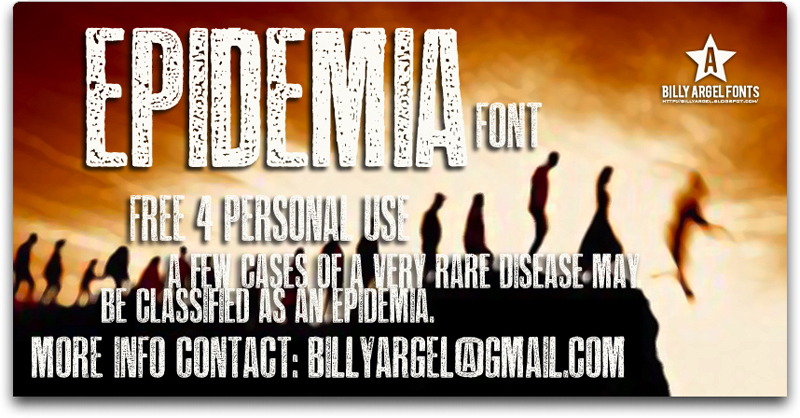
Epidemia by Billy Argel is a free eroded display font with tall, tightly packed capitals and a rough industrial edge. Deep scratches and scattered chips break through the heavy strokes, giving the lettering the look of weathered posters or stamped packaging.
Alternative music labels and streetwear brands could use it for logos, merchandise, and campaign graphics. The narrow build feels urgent and abrasive. On magazine covers, its battered surface can tie typography to gritty photography and distressed collage work.